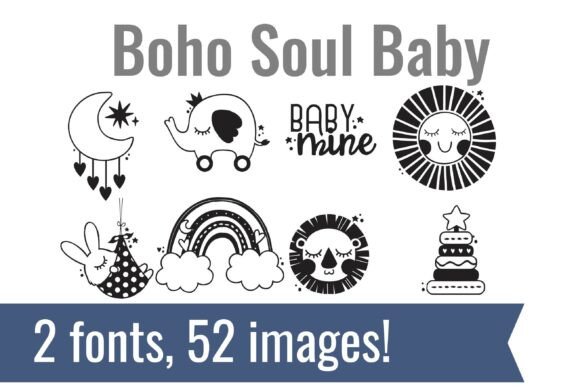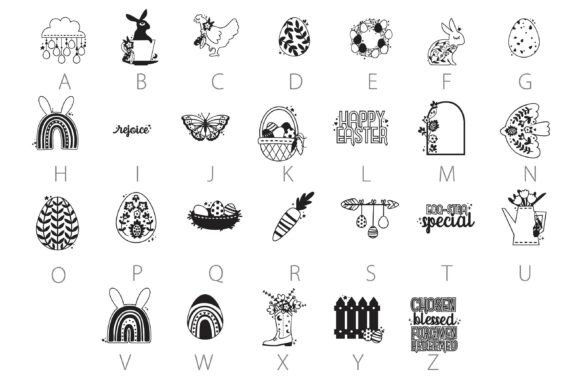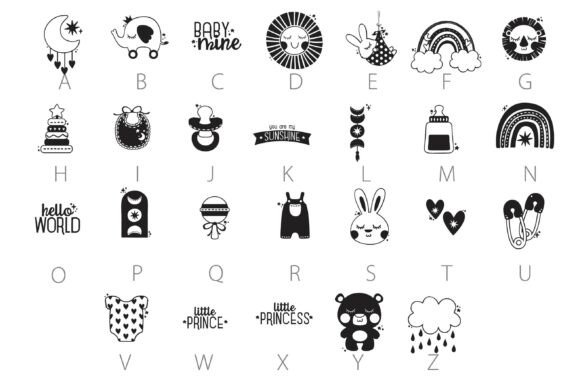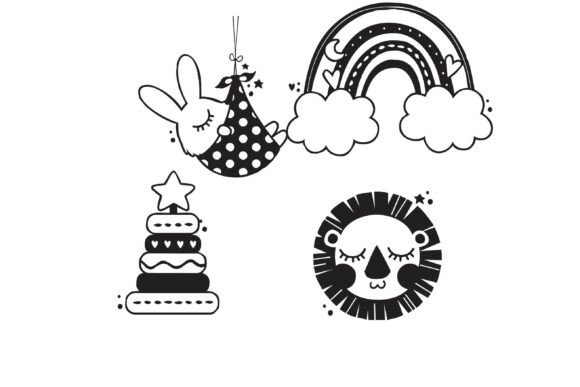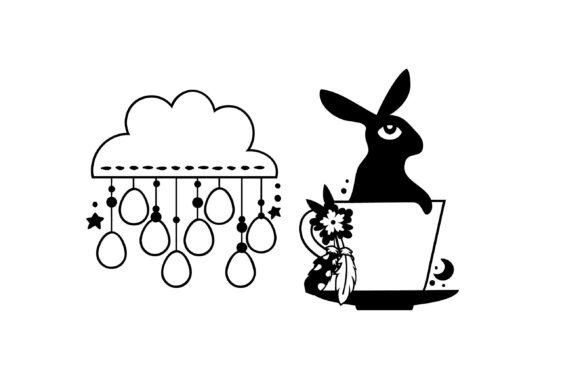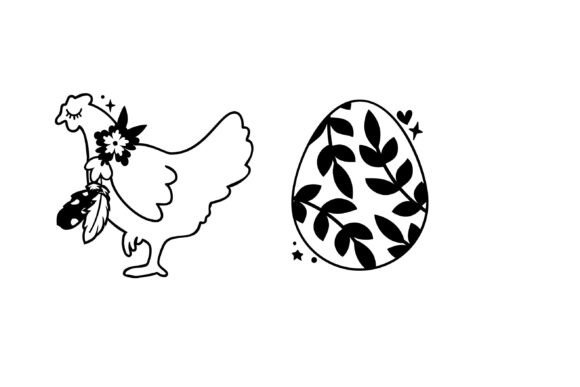
Introduction to Boho Dingbats Font
Unlock endless creativity with two perfectly coordinated dingbat fonts.
There are two dingbat fonts in this bundle, featuring babies and Easter-related items Tired of spending hours searching for the perfect icons and graphics.
Boho Dingbats Font offers exceptional quality and versatility, making it a valuable addition to your design toolkit. Whether you’re creating for personal projects or commercial use, Boho Dingbats Font delivers professional results.